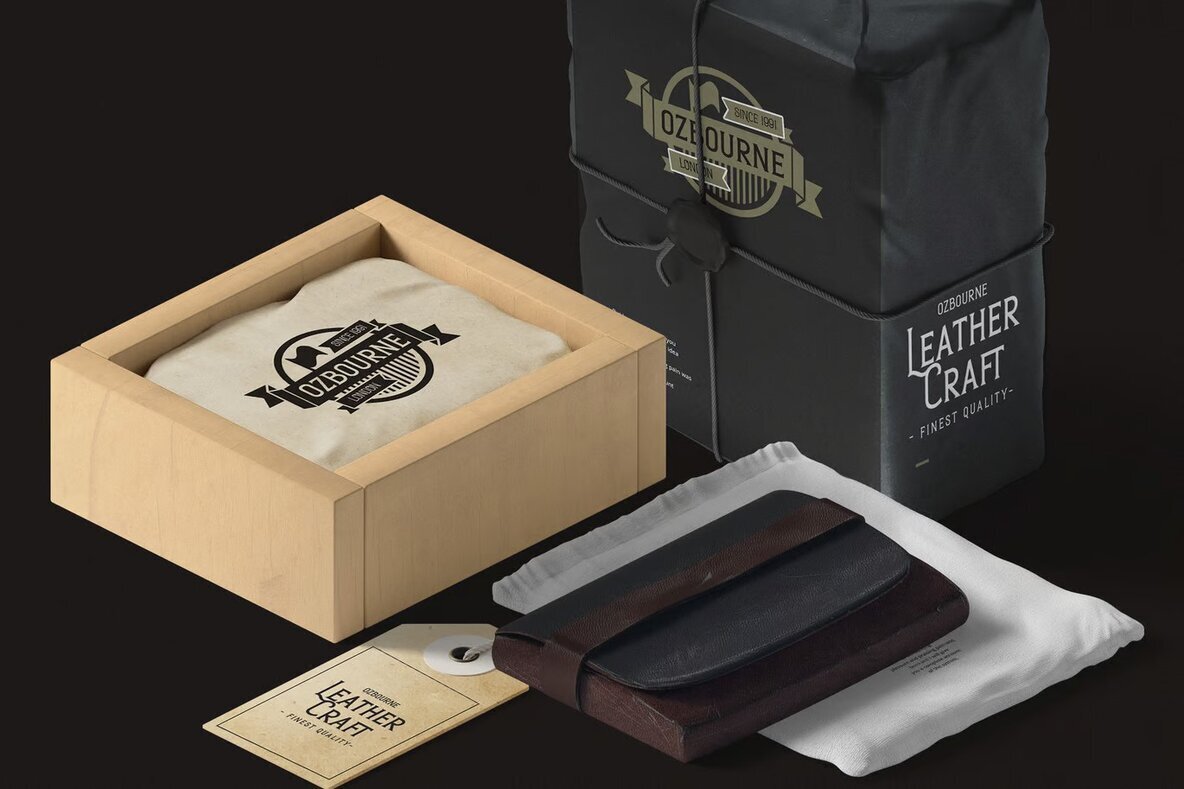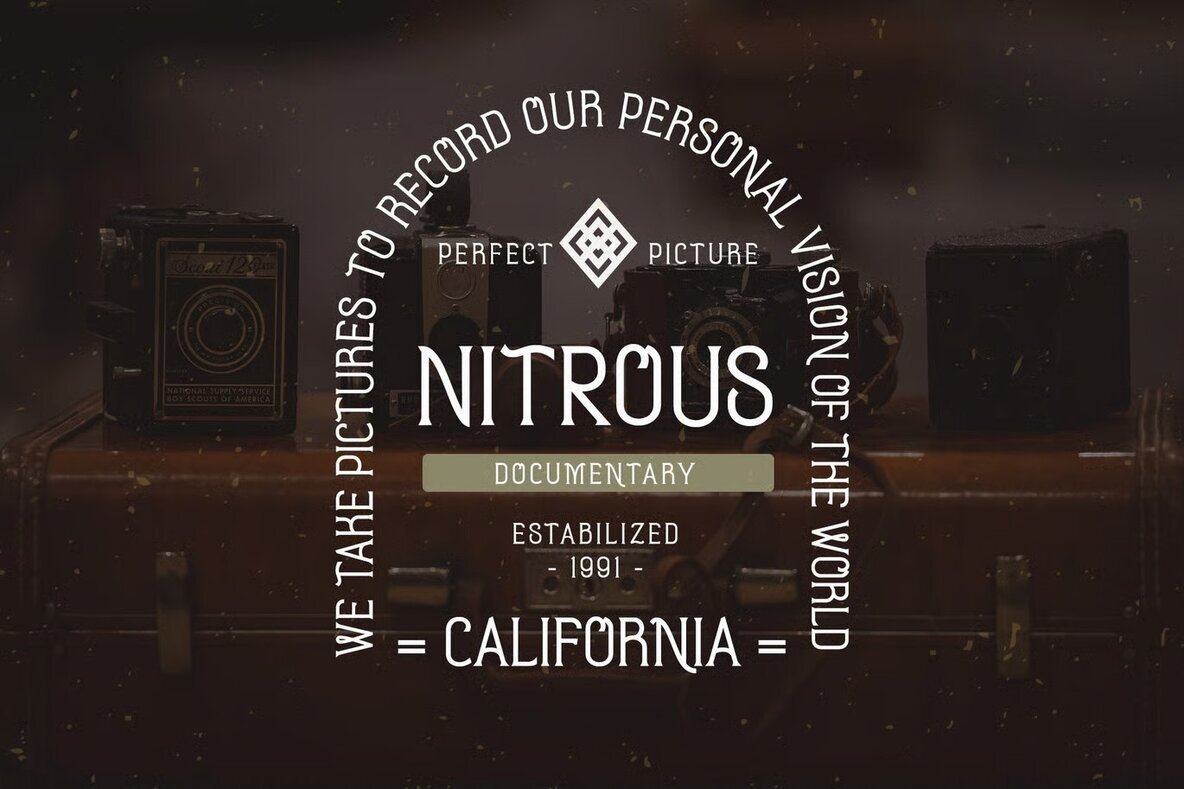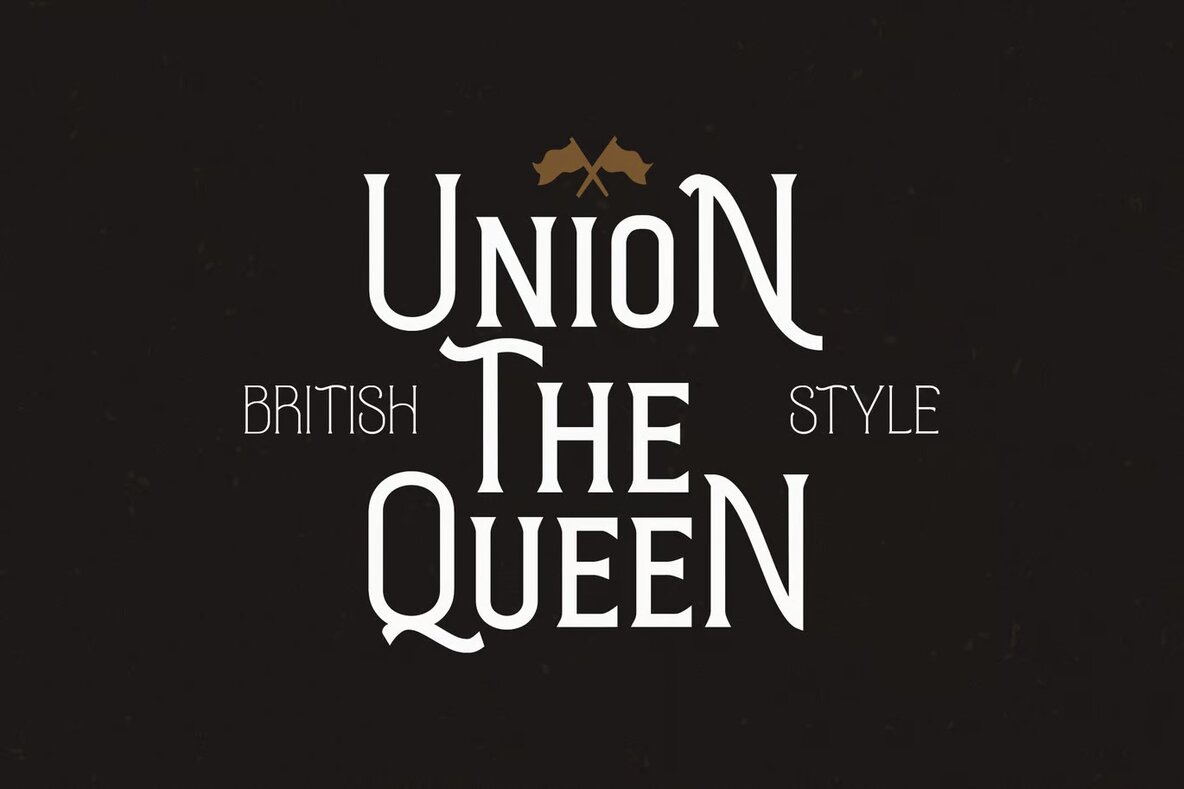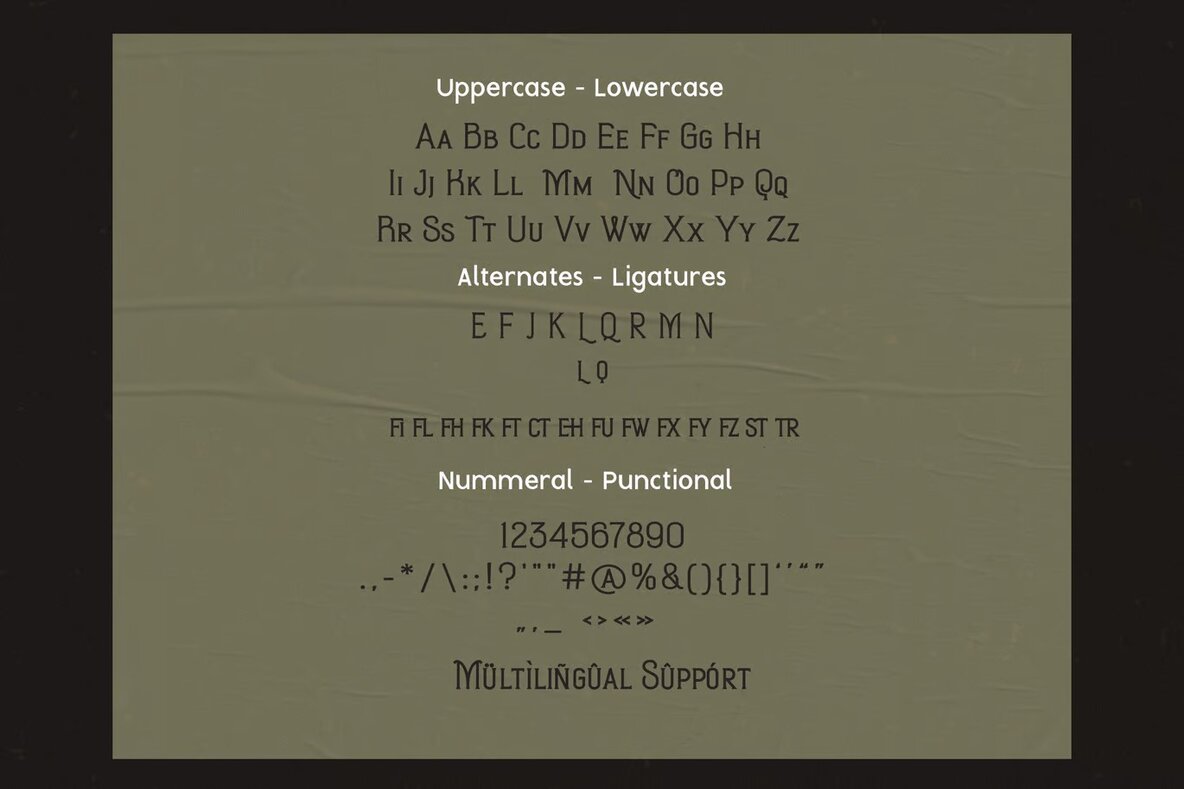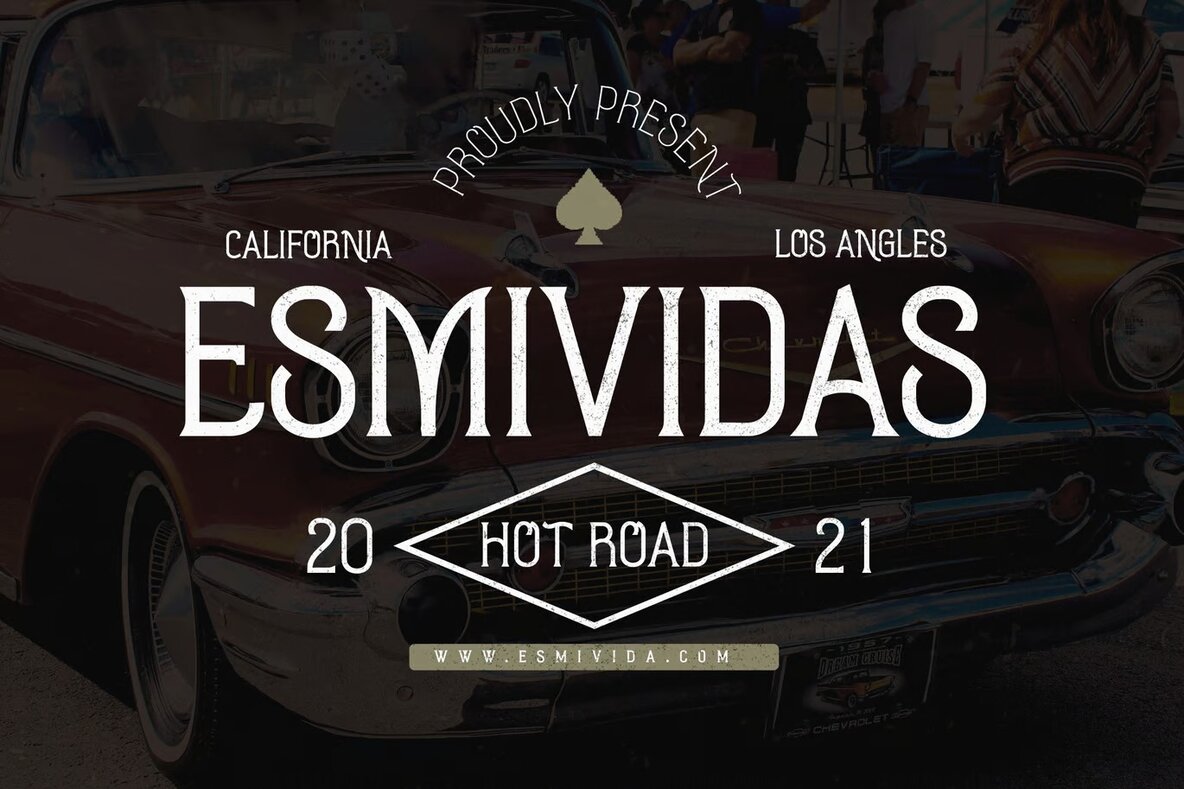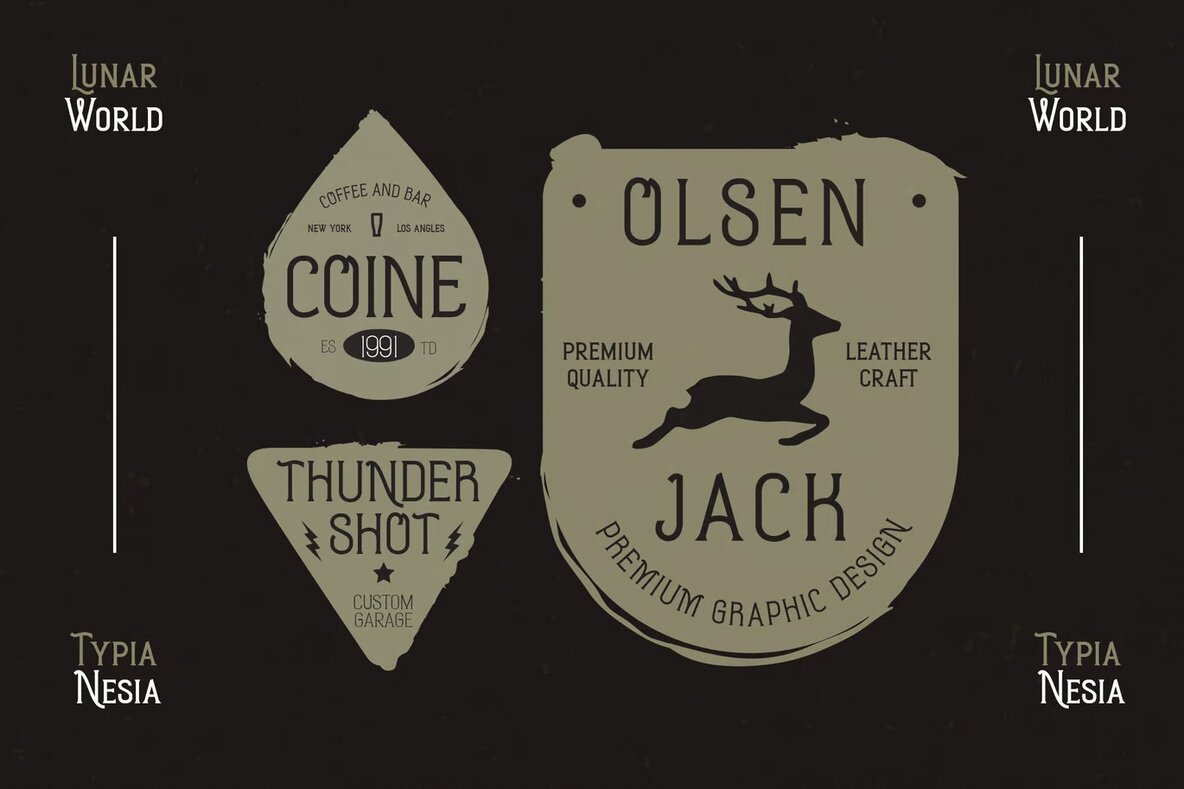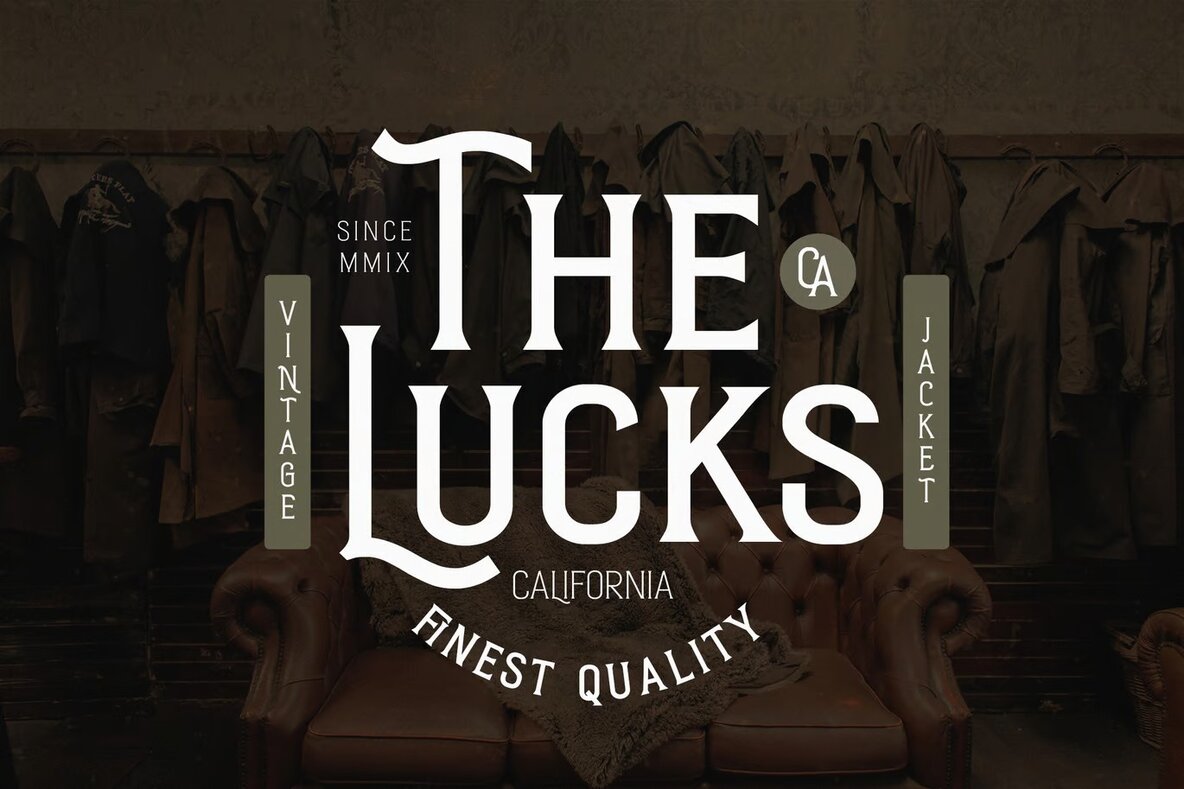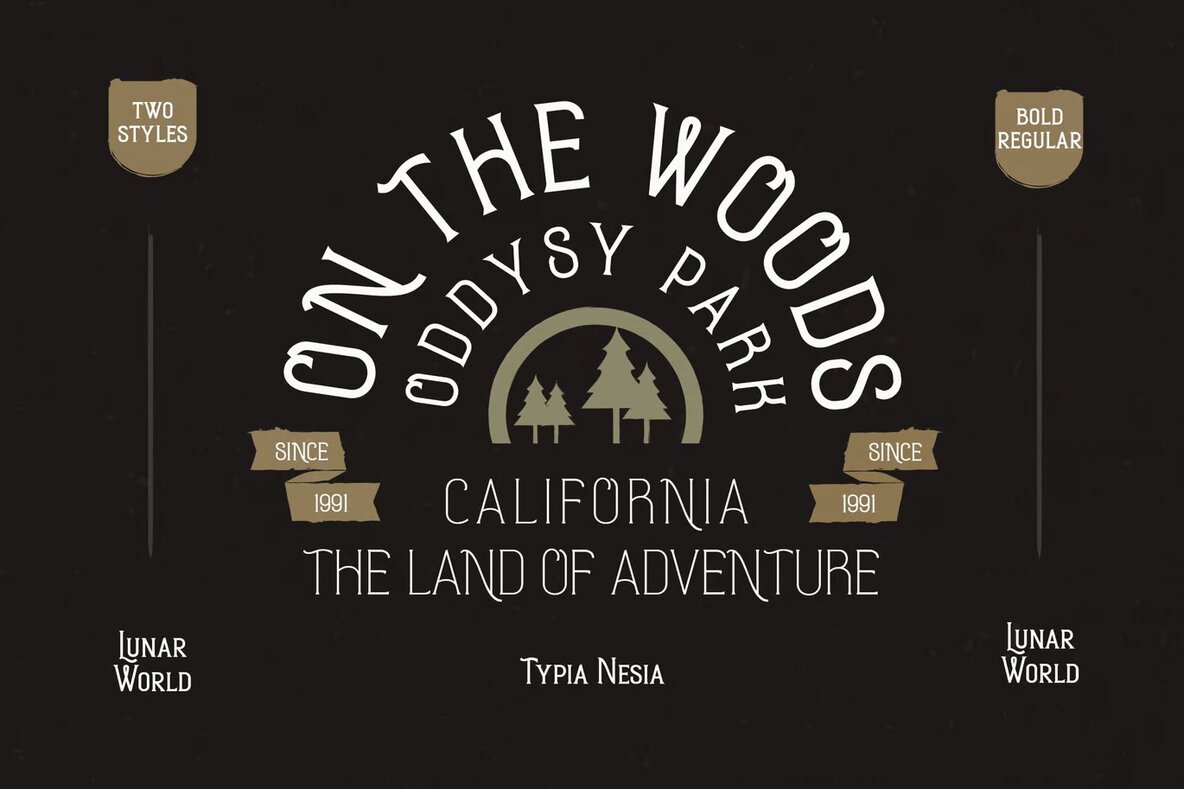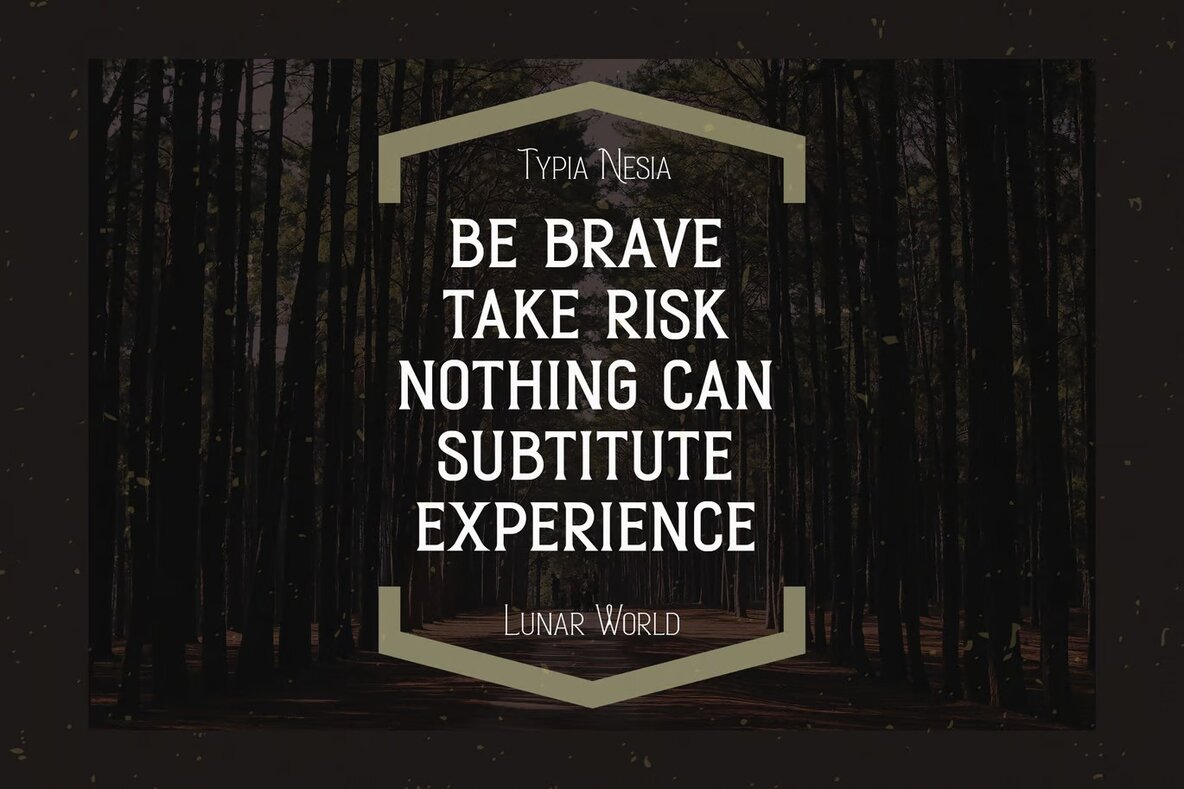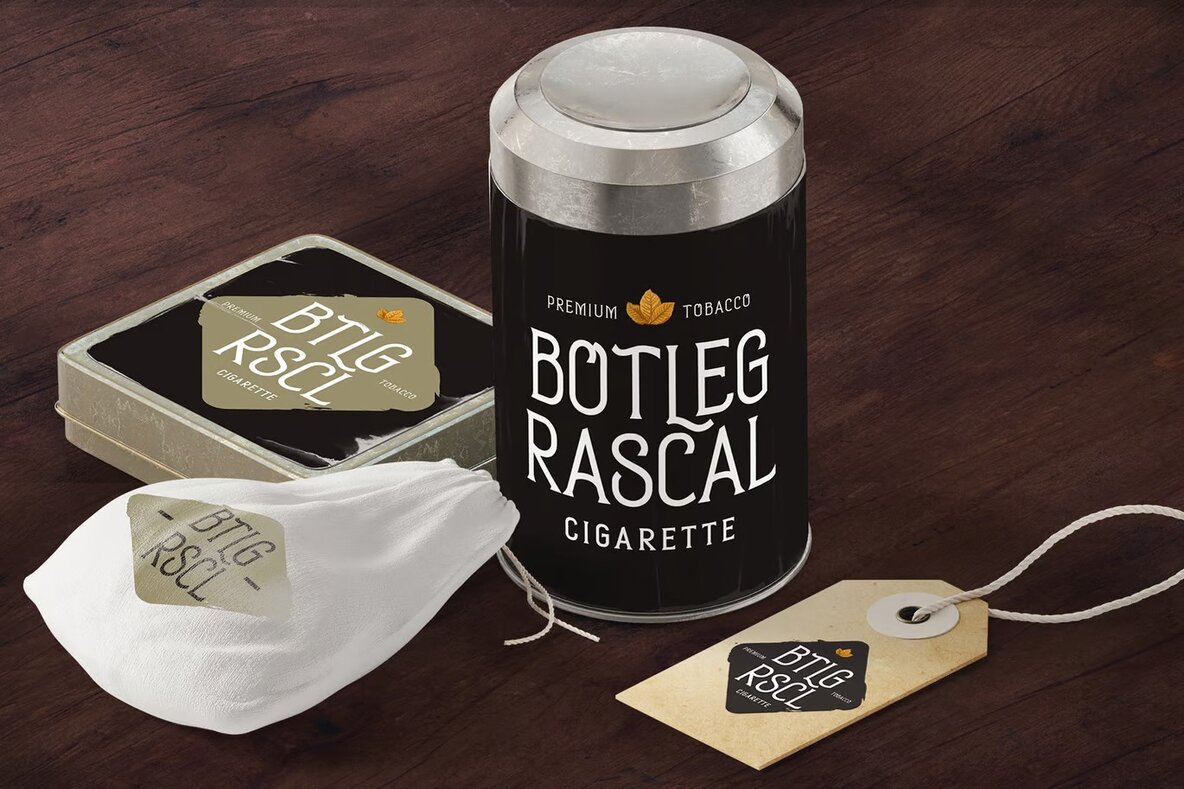
Lunar World Font
Lunar World is a classic vintage display serif that exudes a sense of wild adventure and timeless elegance. This unique font is versatile, making it ideal for a variety of design needs, from modern advertising to retro-themed projects. Whether you're working on a logo for a vintage garage or creating a graphic for an adventure camp, this font provides the perfect balance of style and readability. Its bold character is suitable for editorial designs, book covers, and even animation or movie titles, offering a distinctive edge that stands out.
Tailored for graphic and digital designers, Lunar World thrives in both modern and traditional settings. It enhances brand identity by adding a strong, memorable flair to logos and promotional materials. The font's adaptability also makes it perfect for creating attention-grabbing posters, website banners, and engaging blog visuals. Its vintage serif design is particularly fitting for hardcore music promotions and retro summer quotes. Whether designing for an outdoor brand or crafting a nostalgic editorial layout, this font provides a powerful tool for dynamic storytelling in any project.